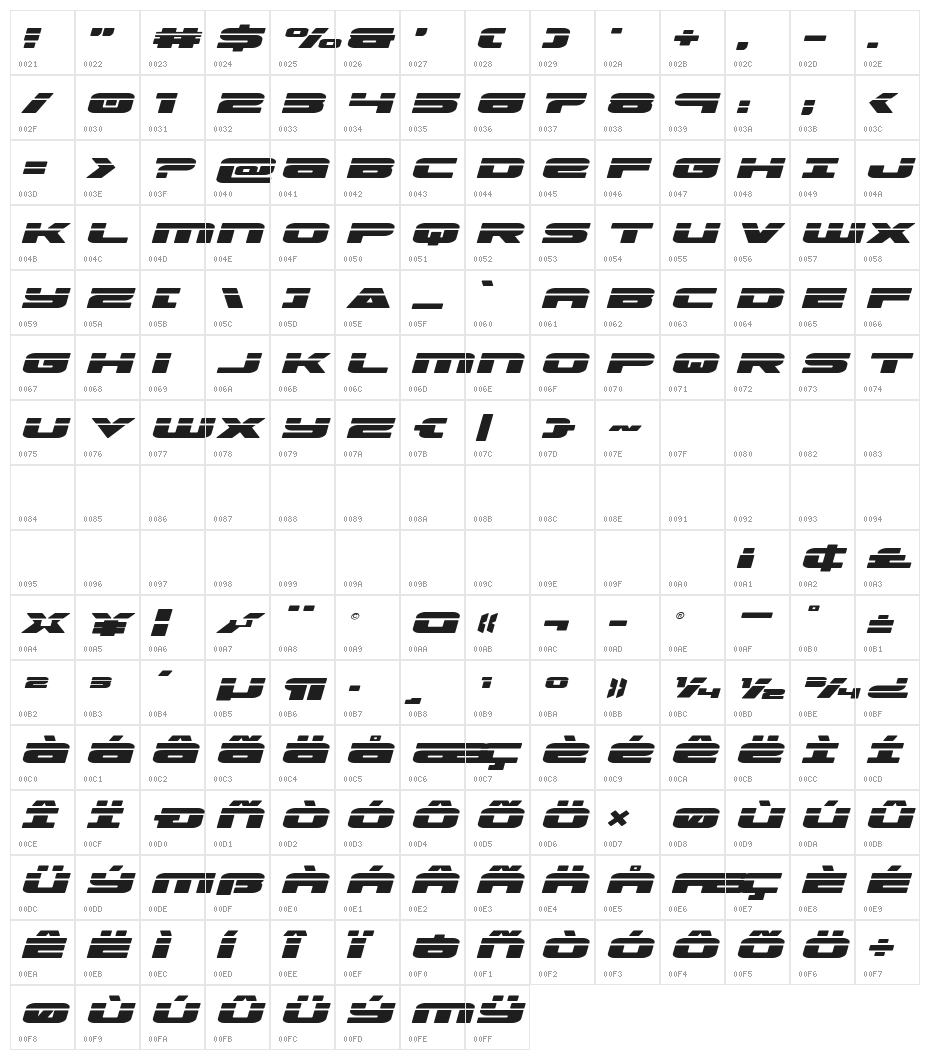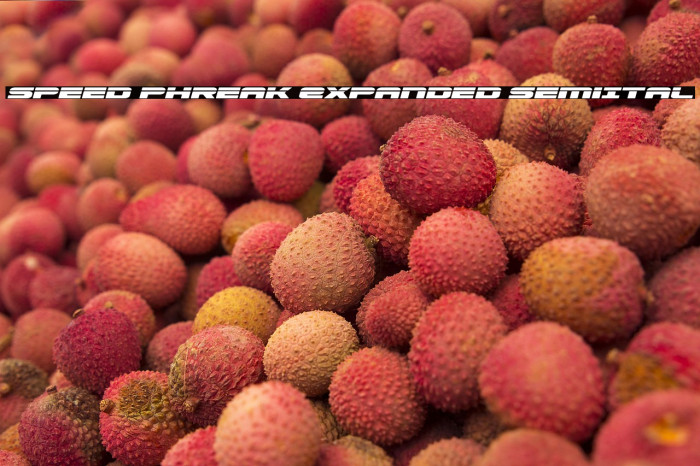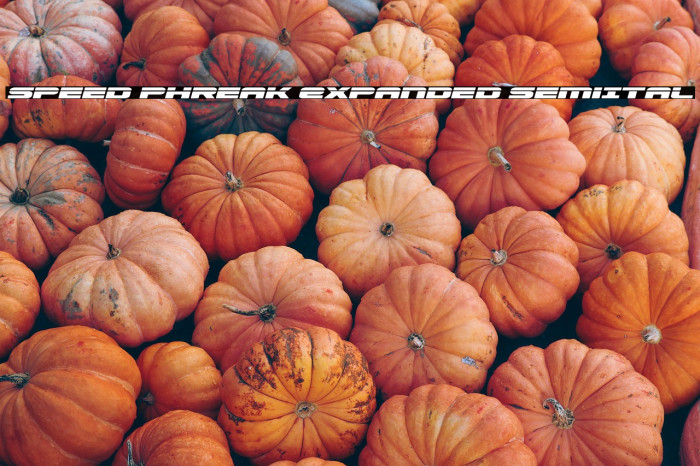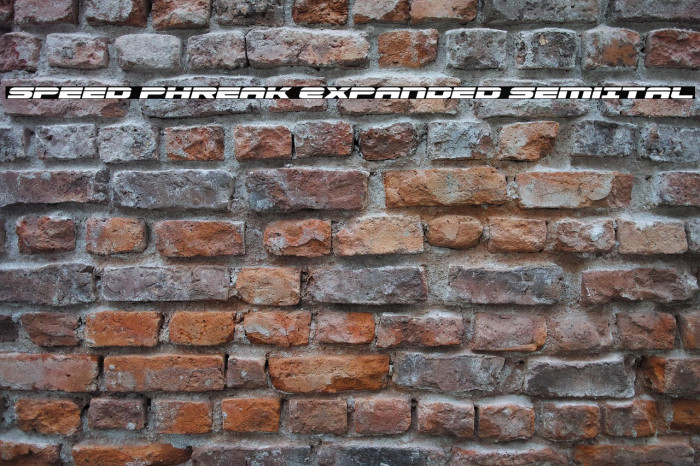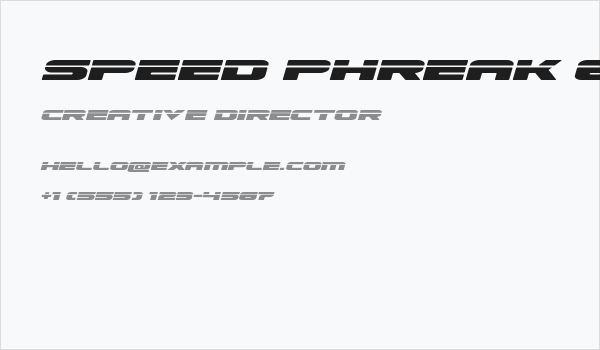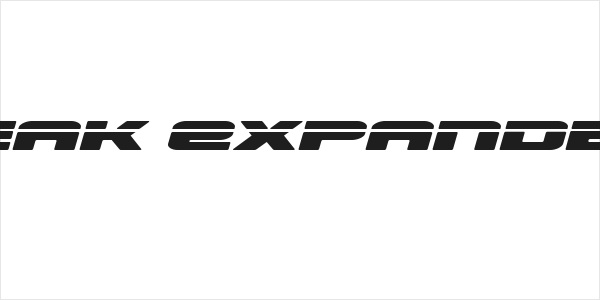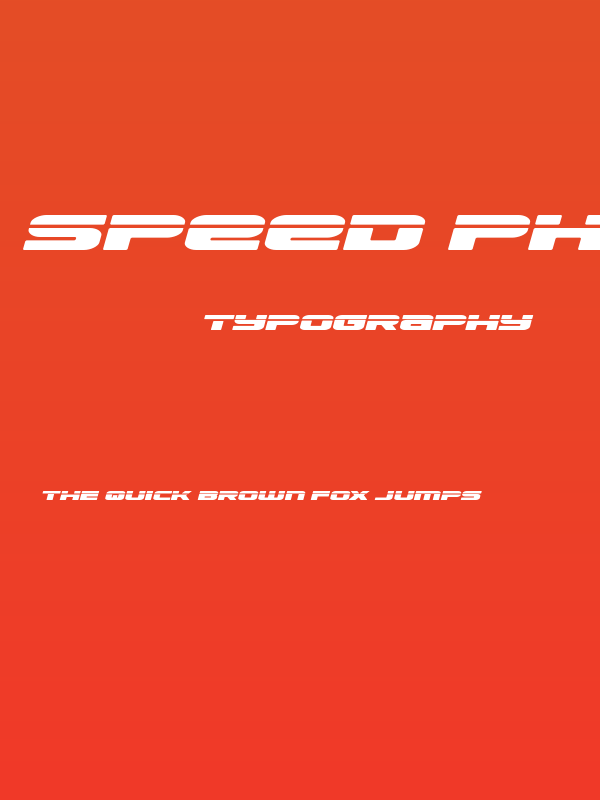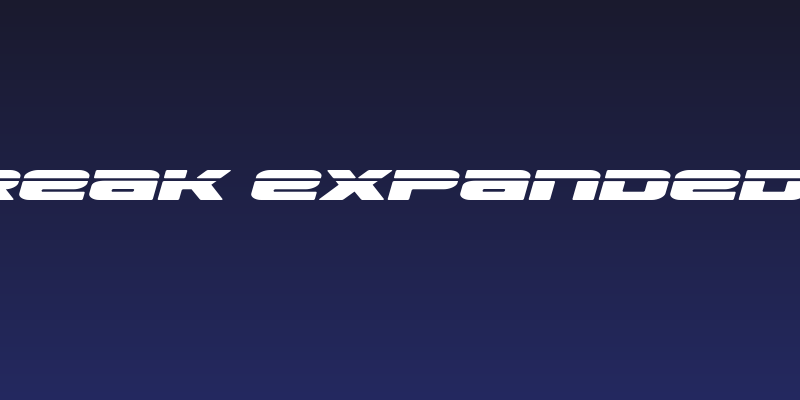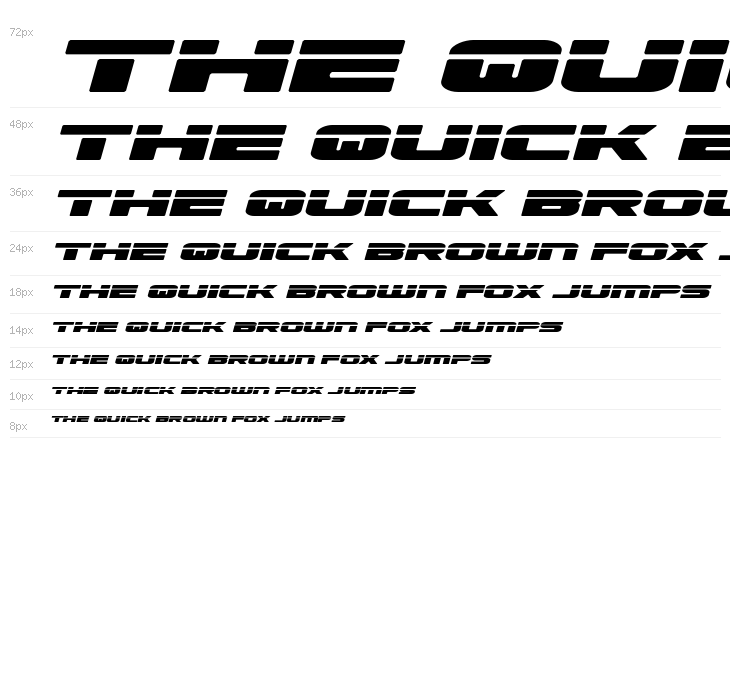
Speed Phreak Expanded SemiItal Font
Speed Phreak Expanded SemiItal Description
This font features a bold, futuristic design with expanded letterforms and semi-italic styling. The characters are wide and have a dynamic, forward-leaning posture, giving a sense of speed and motion. The strokes are thick and consistent, contributing to a strong visual impact. The overall appearance is sleek and modern, suitable for projects that require a bold statement. The numerals and special characters maintain the same stylistic elements, ensuring uniformity across all text elements.
| Proposed Projects | Ideal for use in technology branding, automotive advertising, video game titles, and sports-related graphics. |